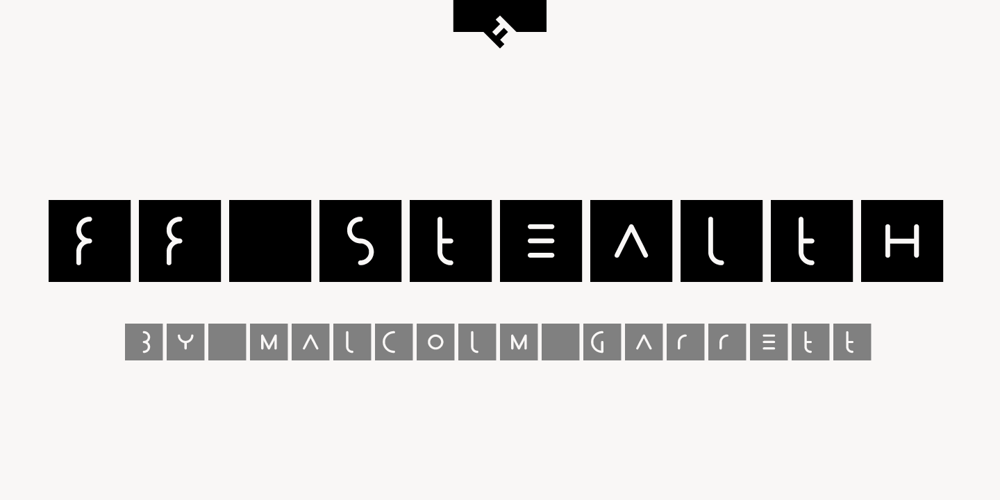
FF Stealth Font Family was designed by Malcolm Garrett and published by FontFont. FF Stealth contains 1 styles and family package options. British type designer Malcolm Garrett created this display FontFont in 1995. The font is ideally suited for film and tv and editorial and publishing. It comes with tabular lining figures.